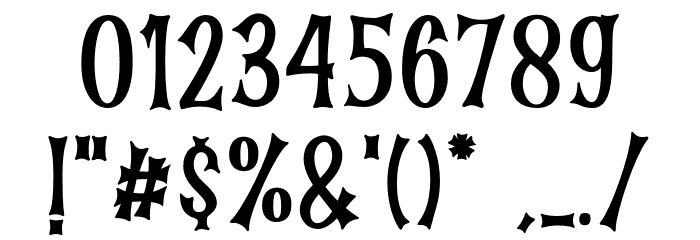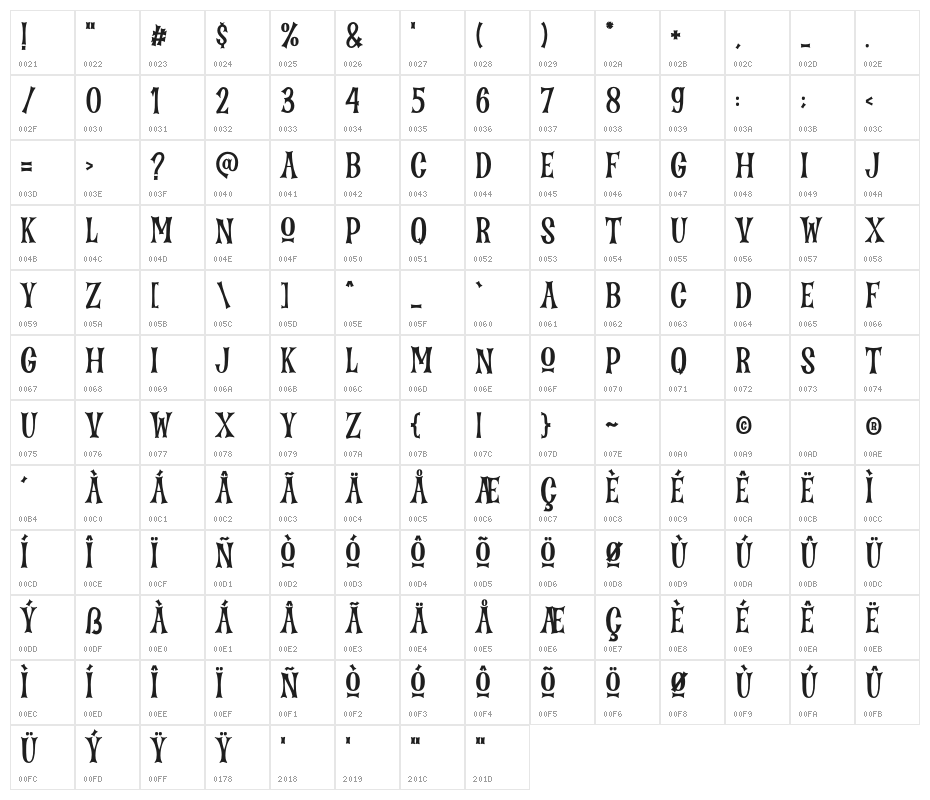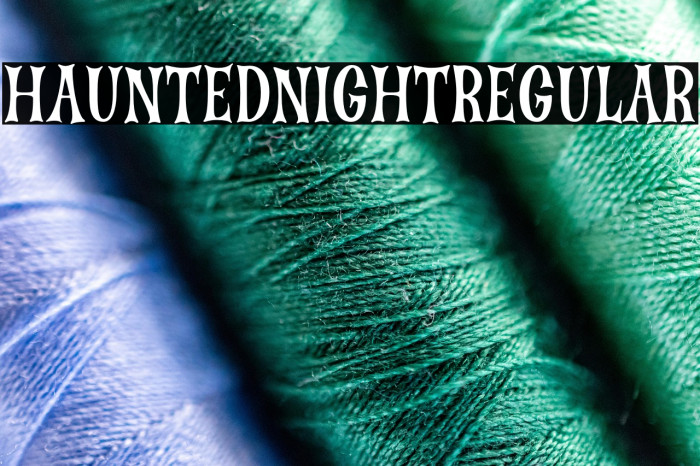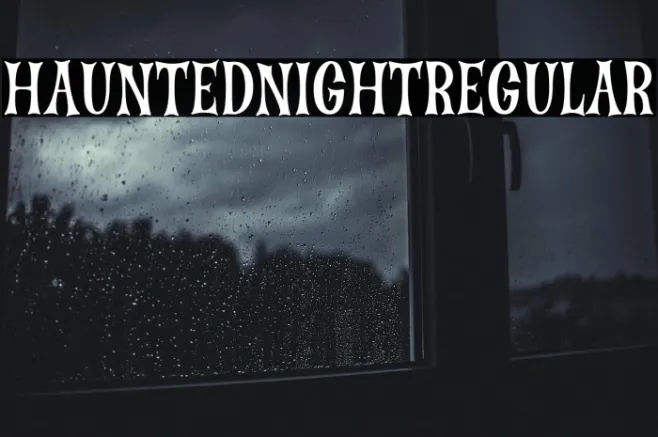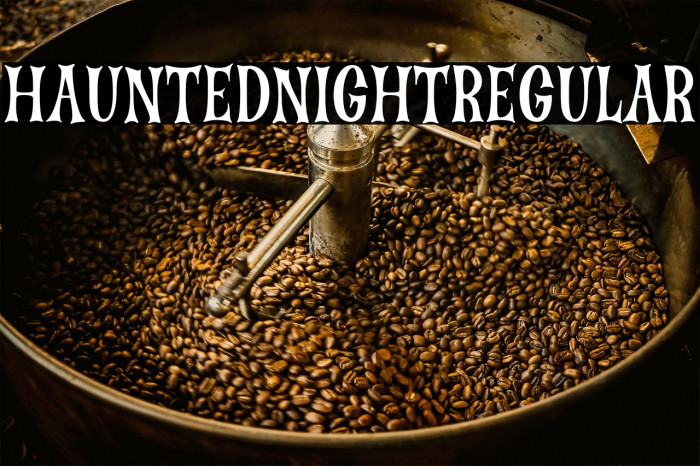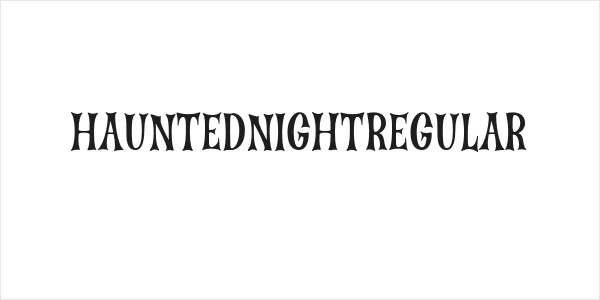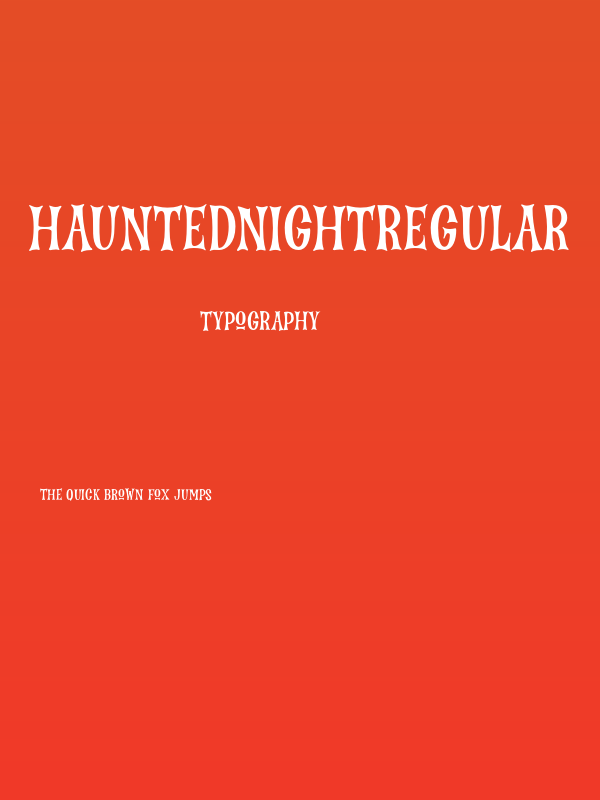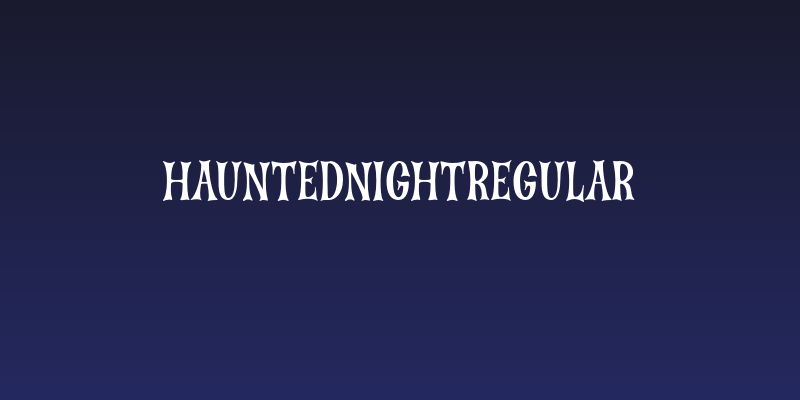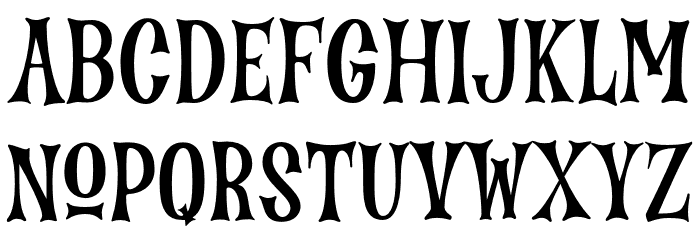
HauntedNightRegular Font
HauntedNightRegular Description
This font features a distinct, eerie style with sharp, pointed serifs and a slightly irregular baseline, evoking a sense of mystery and the supernatural. The characters are bold and dramatic, with exaggerated curves and angles that create a sense of movement and unease. The uppercase and lowercase letters maintain a consistent style, while the numbers and special characters are equally expressive, enhancing the font's overall spooky aesthetic. This font is perfect for Halloween-themed projects or any design that requires a touch of the macabre.
| Proposed Projects | Ideal for Halloween invitations, horror movie posters, haunted house flyers, and themed event branding. |